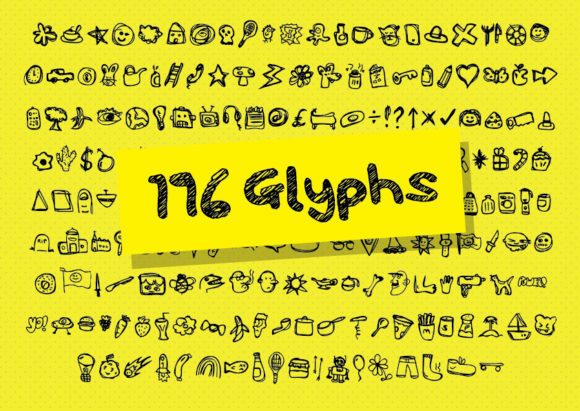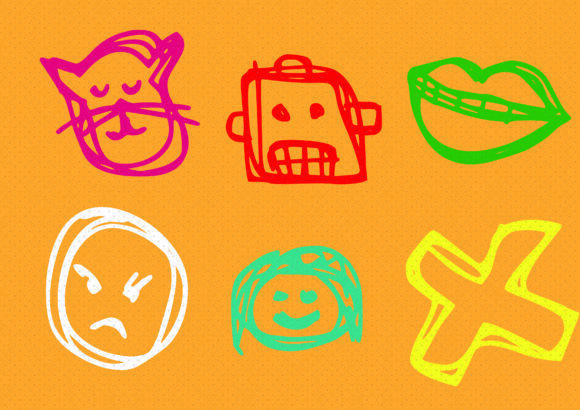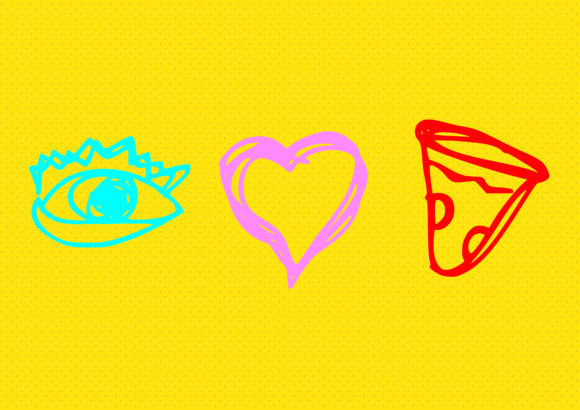
196 Hand Drawn Doddles Font
About 196 Hand Drawn Doddles Font
That sounds like a delightful and versatile font! With over 200 cute doodles and dingbats inspired by everyday objects, foods, shapes, symbols, and more, this font offers a wide range of creative possibilities. Here are some ways you can make use of these doodles and dingbats in your design projects:
1. Social Media Graphics: Enhance your social media posts by incorporating these cute doodles and dingbats. Whether you’re creating Instagram stories, Facebook posts, or Pinterest graphics, the playful and inspiring elements can add a touch of creativity and charm to your visual content.
2. Branding and Logo Design: If you’re looking to create a fun and whimsical brand identity, these doodles and dingbats can be a great addition to your logo design or branding materials. Incorporate elements that represent your brand’s personality or products, and give your brand a unique and memorable visual identity.
3. Stationery and Paper Goods: Add these cute doodles and dingbats to your stationery designs, such as notepads, greeting cards, or invitations. They can bring a touch of playfulness and joy to your paper goods and make them stand out.
4. Website Design and Blog Graphics: Spruce up your website design and blog graphics with these adorable elements. Whether it’s using them as decorative accents, section dividers, or icons, they can add visual interest and personality to your online presence.
5. Arts and Crafts: These doodles and dingbats are perfect for various arts and crafts projects. Use them in scrapbooking, journaling, card making, or any DIY project that needs a whimsical touch. They can also be great for creating patterns, prints, or stencils for fabric design or other artistic endeavors.
Remember to have fun and experiment with different combinations and arrangements of these cute doodles and dingbats. They can be mixed and matched to create unique compositions and designs that reflect your personal style and vision. Enjoy the process of incorporating these joyful and inspiring elements into your creative projects!